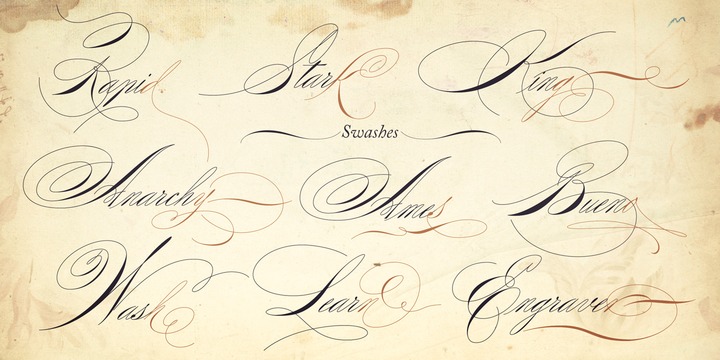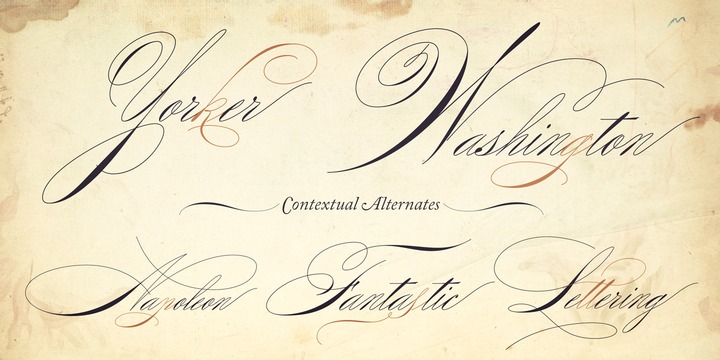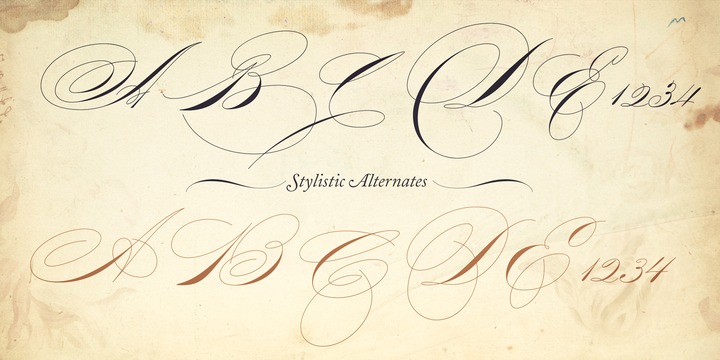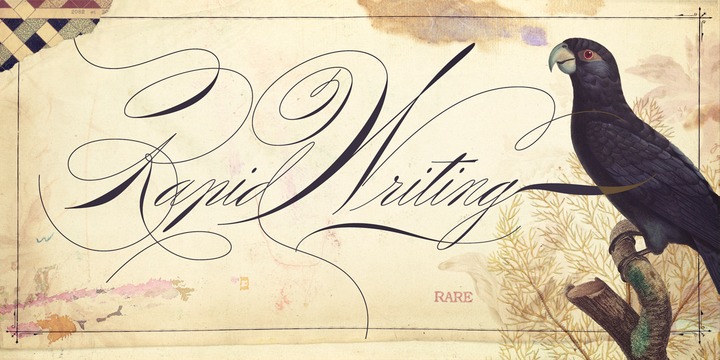
Rapid Writing is based on the Rapid and Muscular Methods of writing, where the whole arm instead of the wrist is used to write.
Copybooks and vertical writing fostered form at the expense of freedom. Speed and muscular movement have fostered freedom at the expense of form. This font is based upon form and movement and brings spontaneity and freedom to calligraphy! The font is full contrast, swashes, round forms, ligatures, contextual alternates and other surprises.
OPENTYPE FEATURES 34 Contextual Alternates 32 Standard Ligatures Several Stylistic Alternates (2 options for A-Z/0-9) Ending Swashes (Each character (A-Z) has up to 12 swash endings) Not to mention the font has 710 glyphs.
More HOW TO USE THE ENDING SWASHES Its very simple! Simply write the word+ > (greater symbol).
For example: Typography> Typography>> Typography>>> etc. After each > you get a different ending swash for each character. So there are lots of different combinations and alternatives to suit your needs! The font also comes with a PDF Manual.